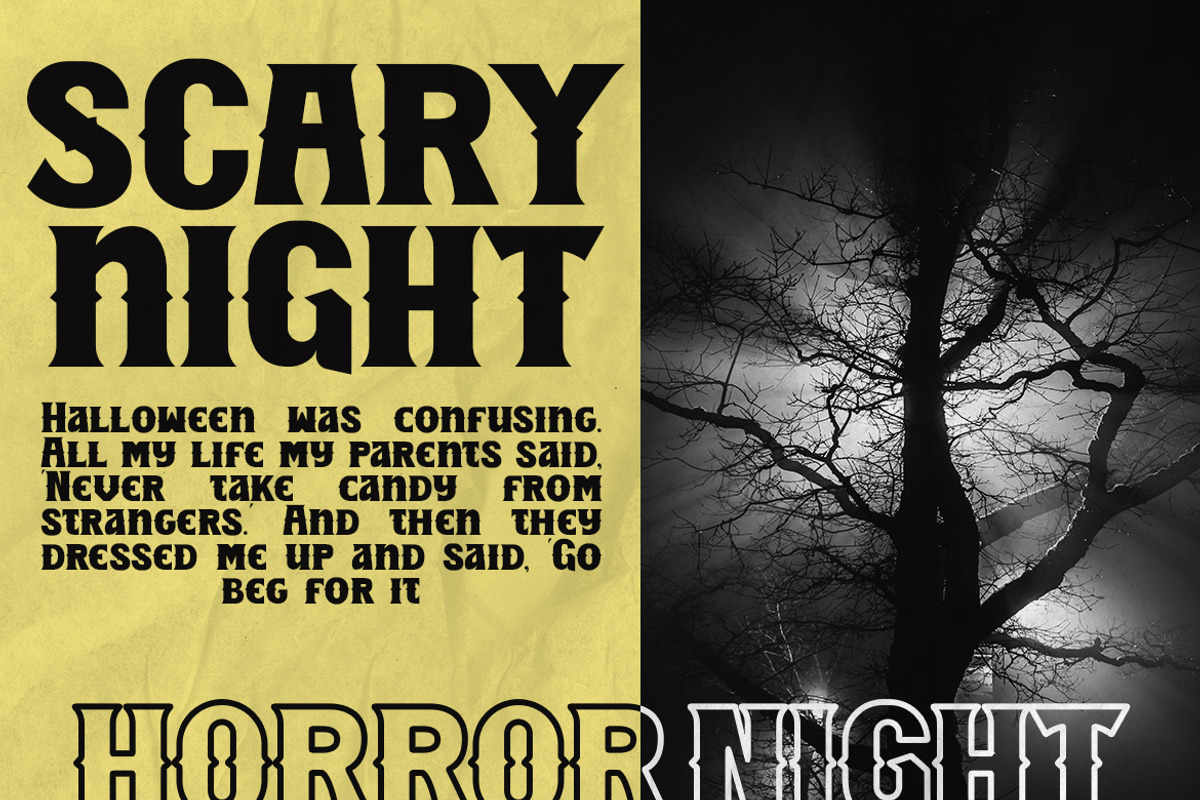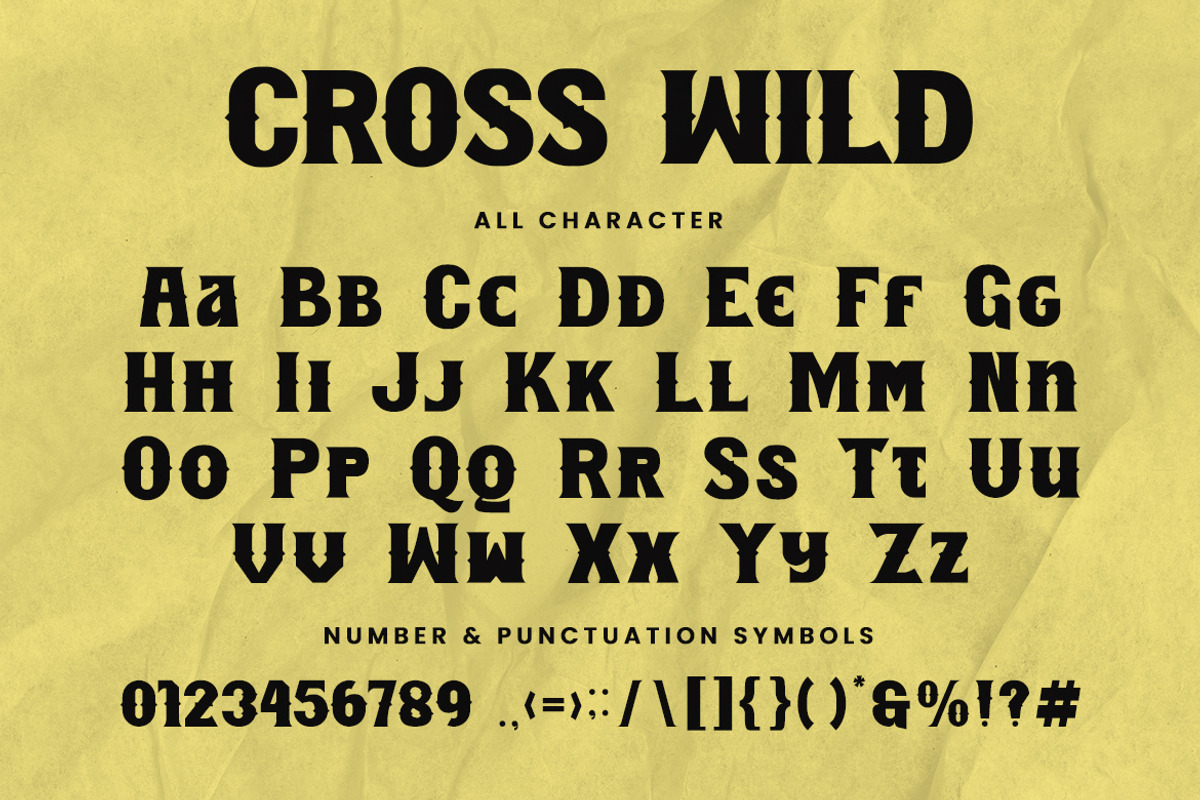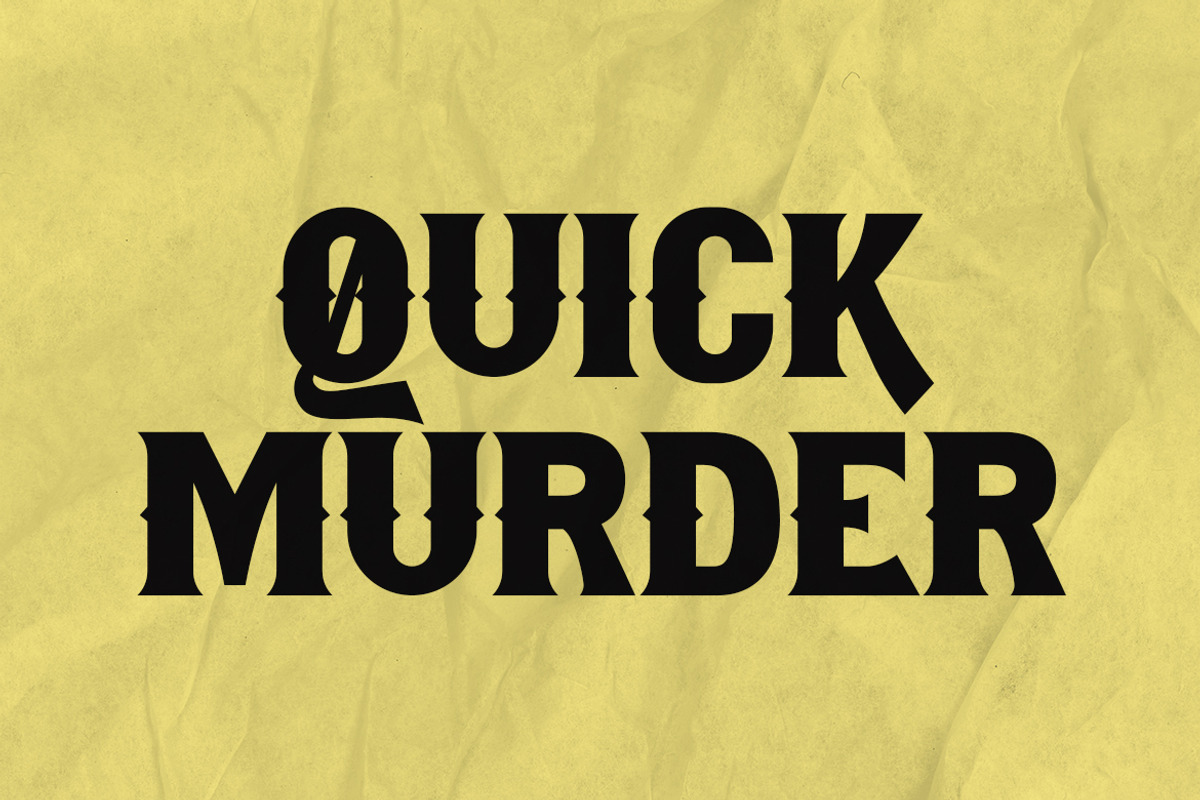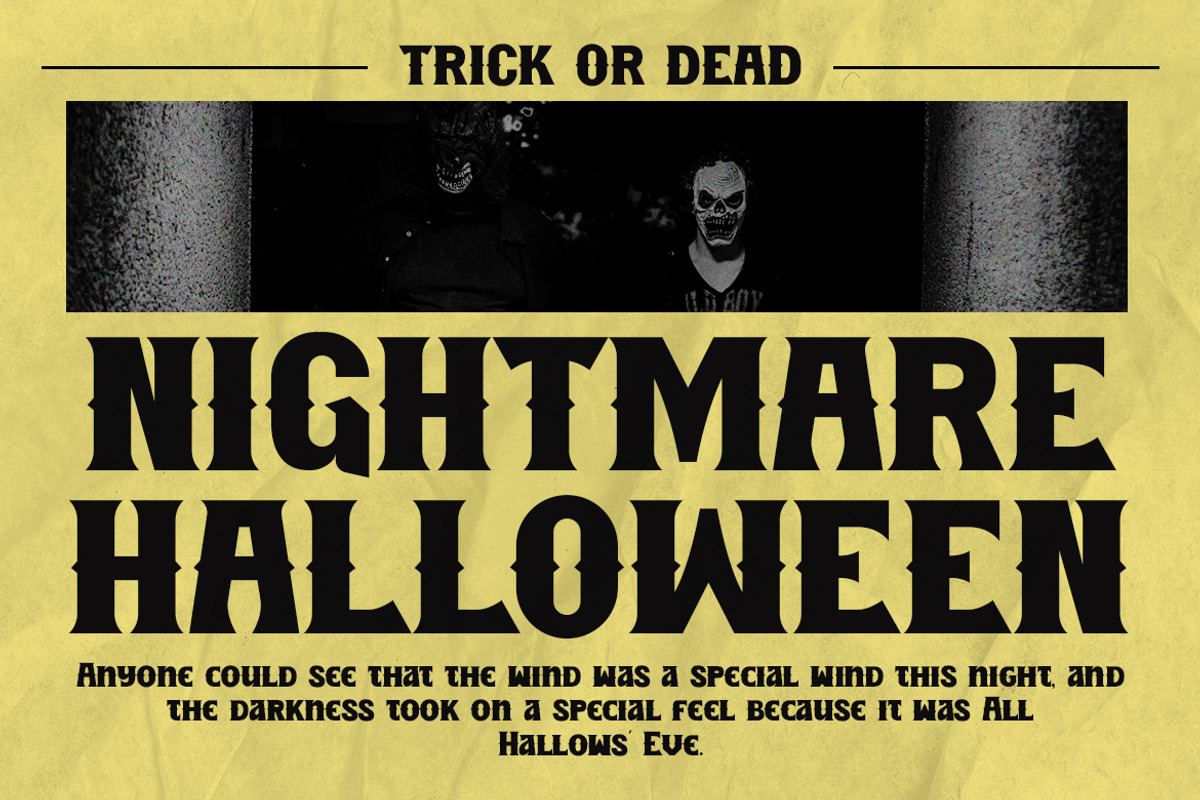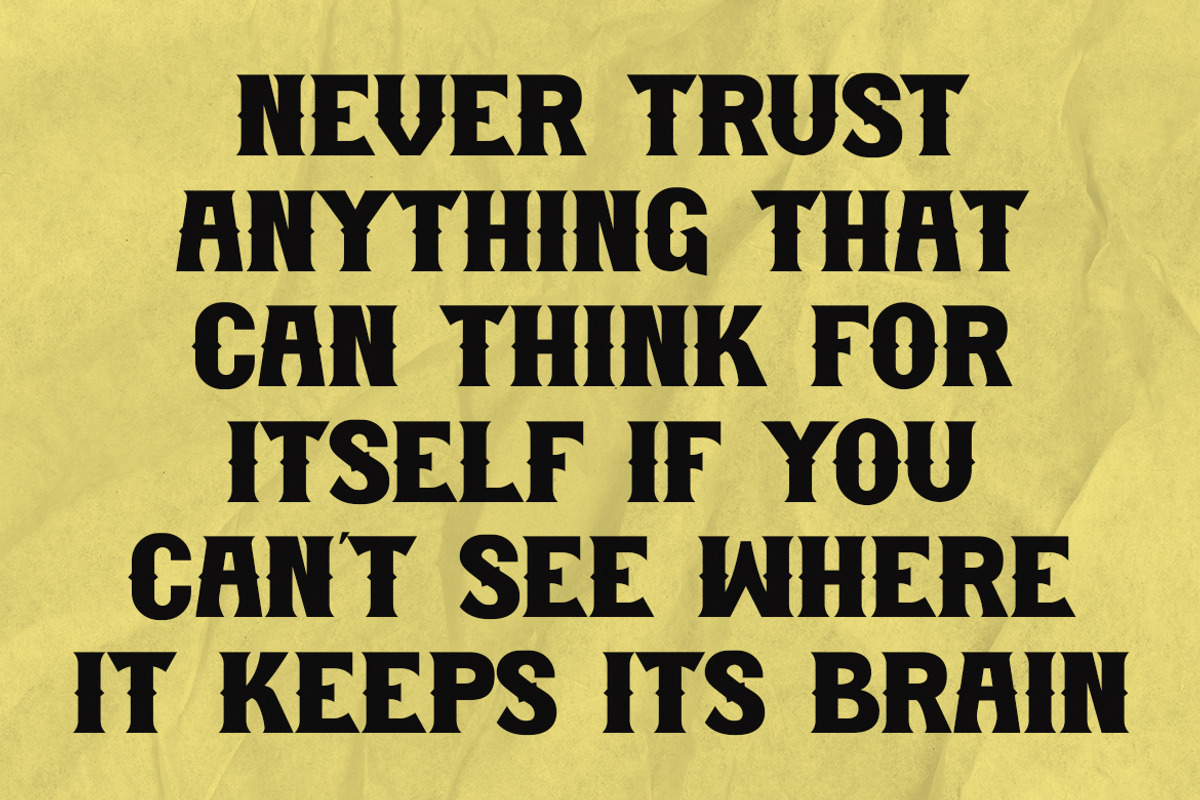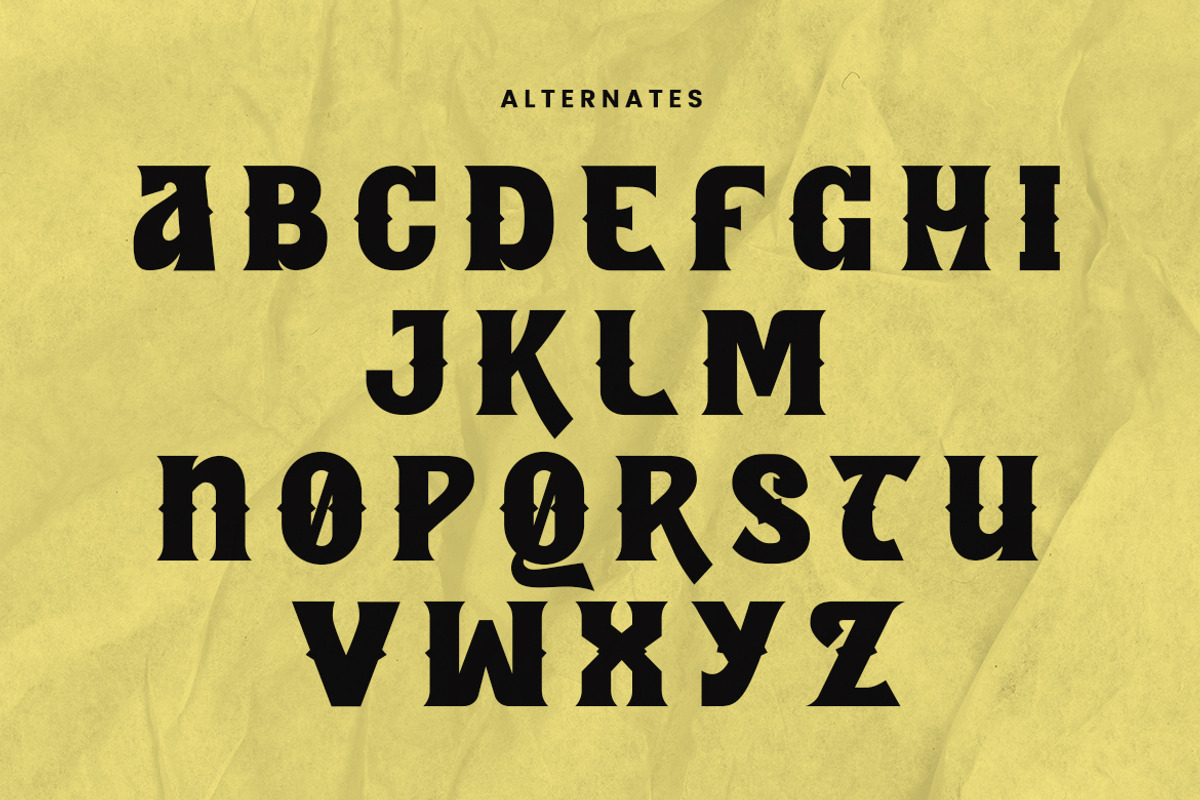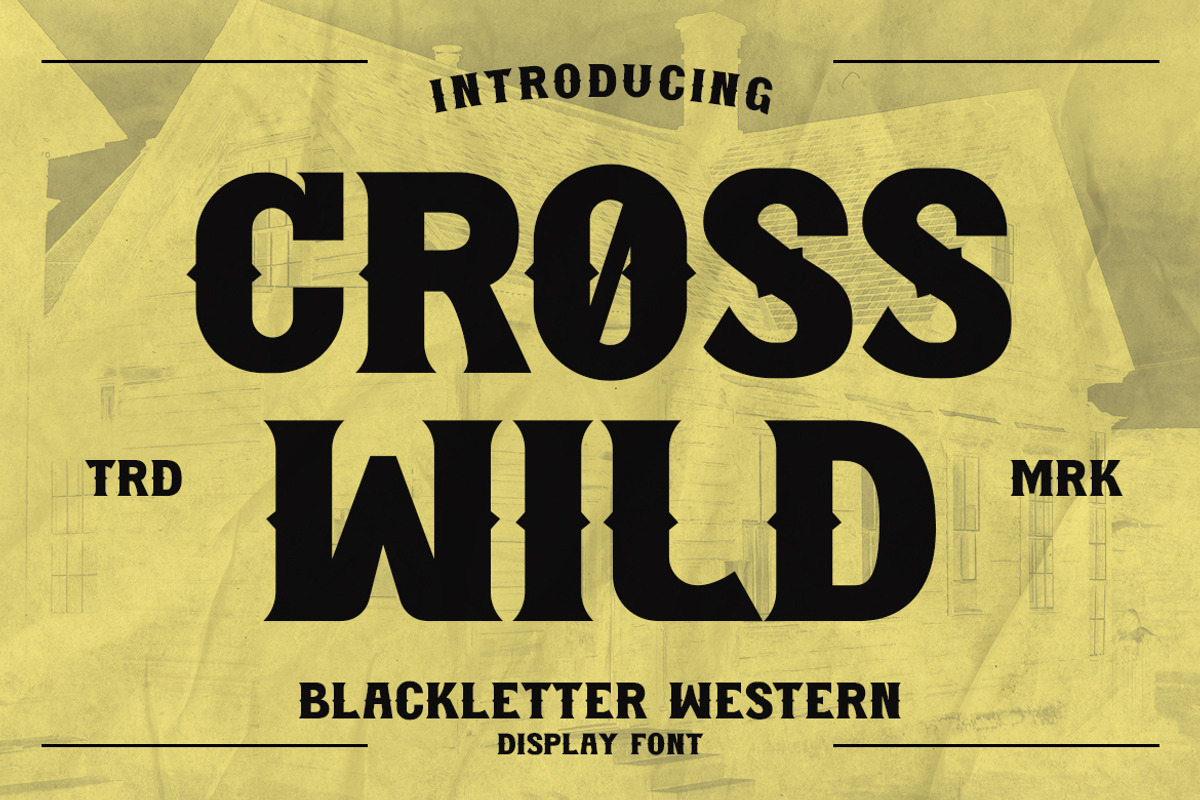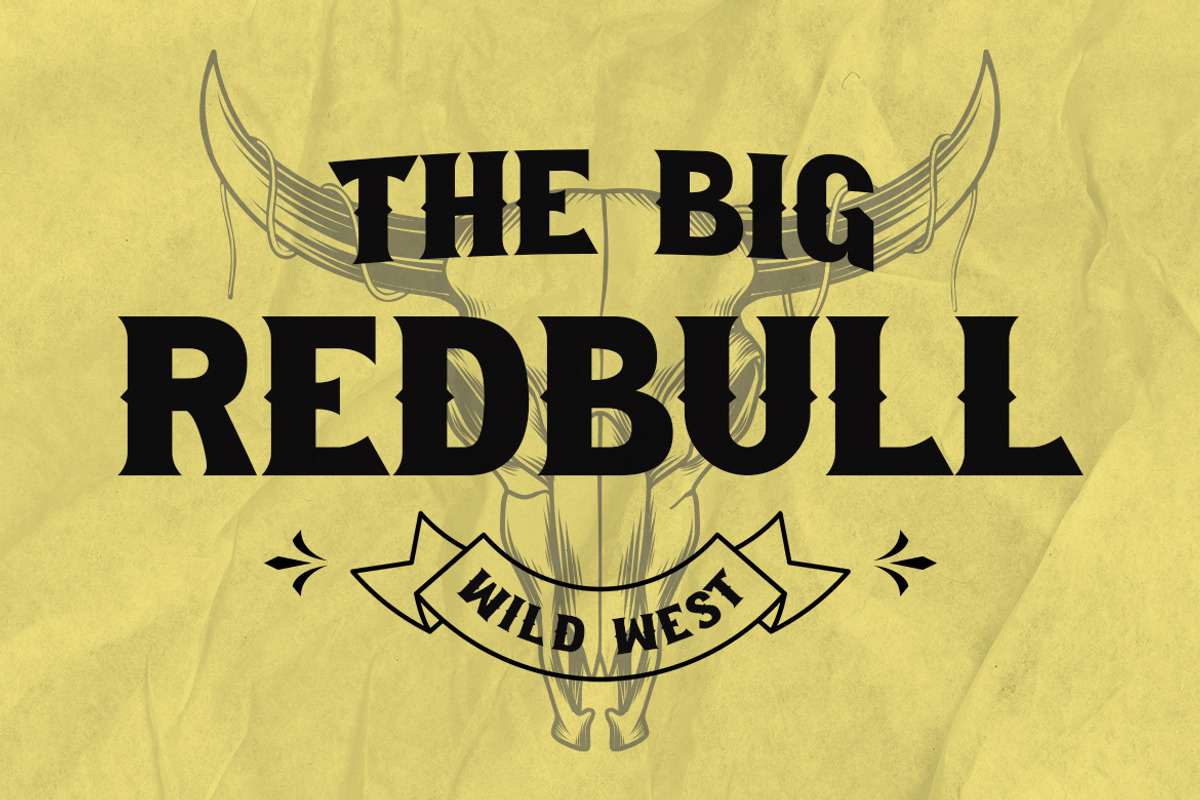
Crosswild - Blackletter Font
Crosswild - Blackletter Font contains a lowercase, uppercase, symbol, and also supports multi-language. There’s a lot of ligature in this font. Crosswild - Blackletter Font also comes with ligatures, stylistic alternates and many more. this font suitable for fashion, branding, catalog and other design that you want.